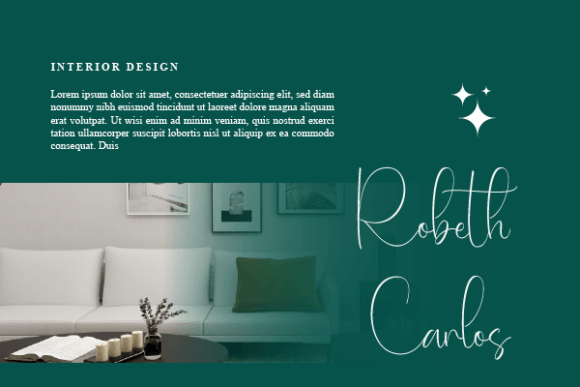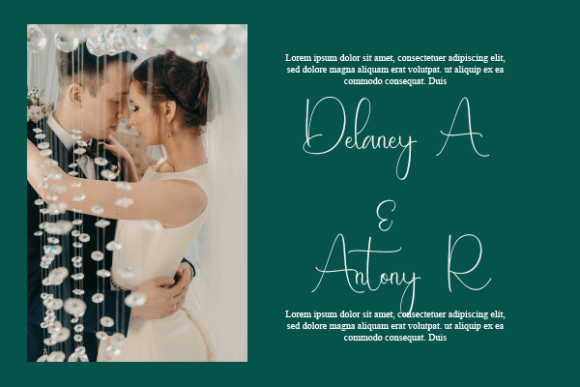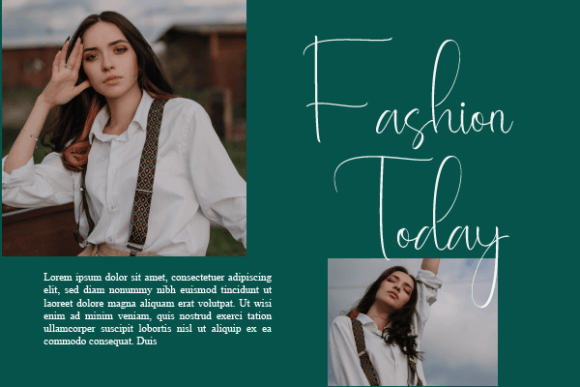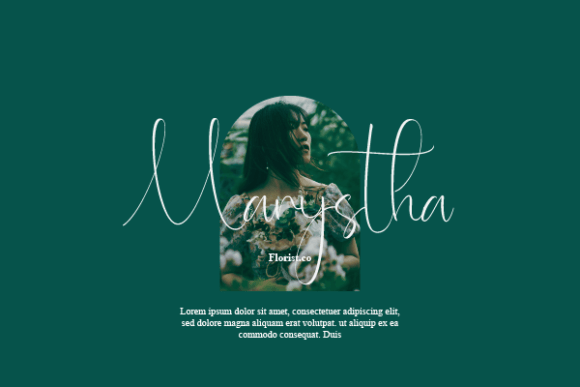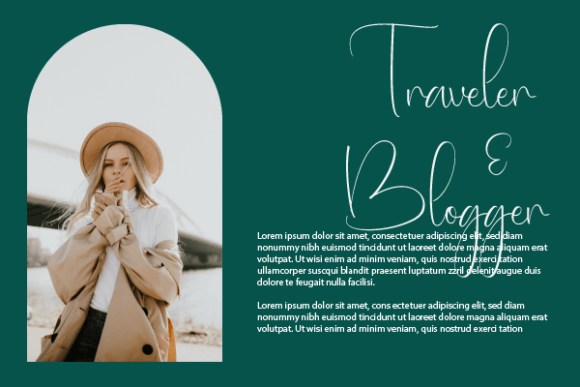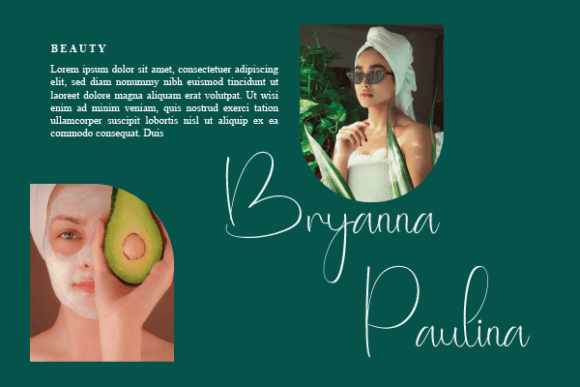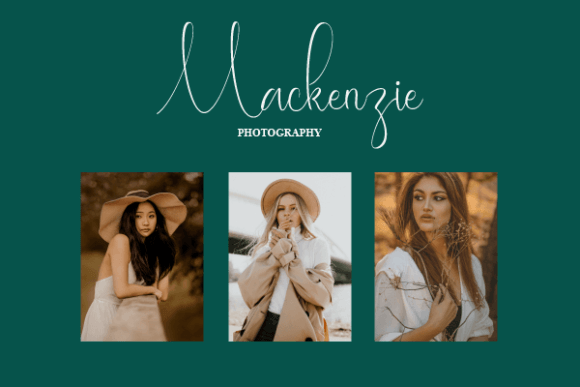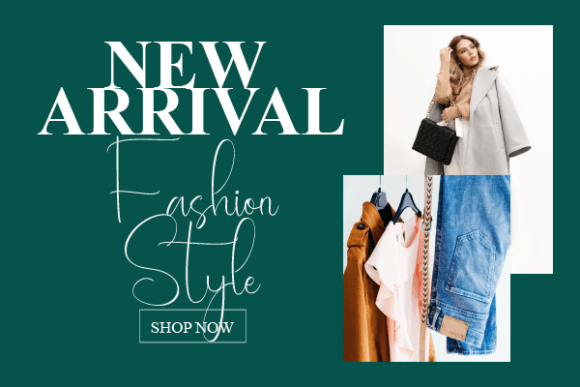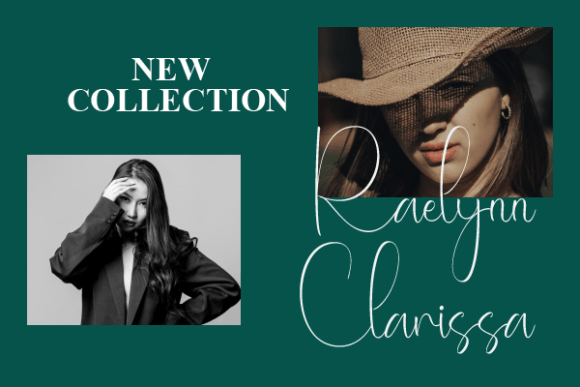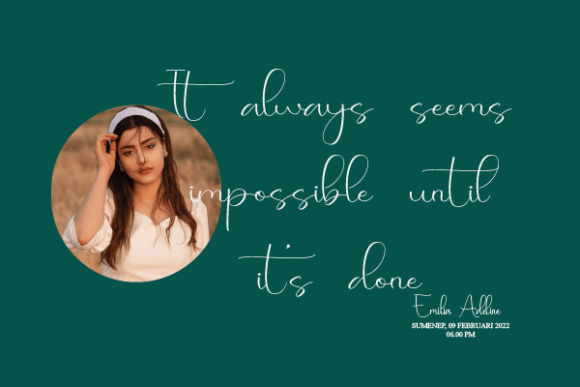
Mc Grath Font
About Mc Grath Font
**Mc Grath** is a truly enchanting handwritten font that captivates with its romantic charm and versatile appeal. With its delicate and flowing script, this font adds a touch of elegance to a wide range of design projects. Its enchanting qualities make it a perfect choice for various applications, from greeting cards to headlines, ensuring that it infuses a romantic and heartfelt atmosphere into your next project.
One of the standout features of **Mc Grath** is its versatility. This font effortlessly transitions between different design contexts, making it suitable for a diverse array of applications. Whether used in greeting cards, where its romantic flair enhances heartfelt messages, or in headlines, where its graceful script adds an air of sophistication, **Mc Grath** elevates the visual appeal of any project it graces.
The font’s enchanting nature stems from its flowing strokes and graceful letterforms, which create a sense of romance and intimacy. The handcrafted feel of **Mc Grath** adds a personal touch to your designs, making them feel warm and inviting. Its versatility allows it to be paired with various visual elements, enhancing the overall aesthetics of your projects.
**Mc Grath** is more than just a font; it’s a mood, an emotion, and a style. It brings a romantic feel to your designs, making them resonate with passion and sincerity. Its ability to convey emotions through its elegant script makes it a valuable asset for designers seeking to infuse their projects with a touch of romance and sophistication.
By incorporating **Mc Grath** into your next project, you’re inviting an enchanting and romantic atmosphere that enhances the overall impact of your design. Whether used in printed materials, digital media, or any other creative endeavor, **Mc Grath** is the perfect choice for adding a romantic feel that captivates and enchants your audience.